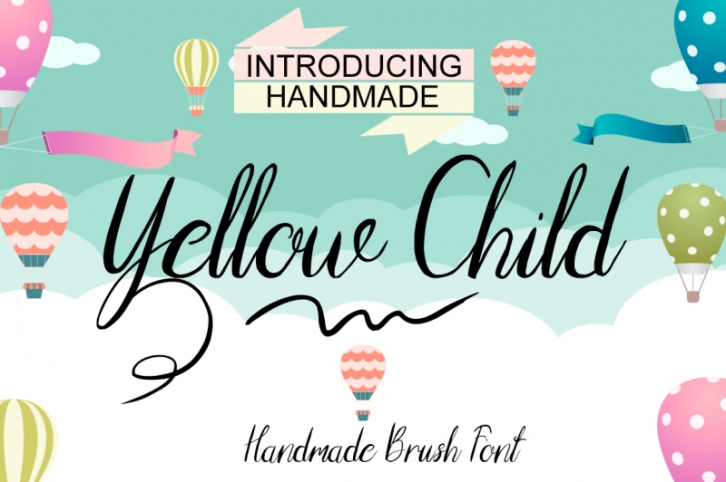
Yellow Child Script FONT Download
In addition, the construction of logo,
you can use any case you want to sign in and print.
Font typography in a consistent fashion.
You can create your logo, your own brand.
You want an invitation letter for special occasions can be seen perfectly.
As stated in the presentation of a beautiful cover of the book cover can be created.
When opening your new sign in a café,
a shop opening modification you want to make your beautiful handwriting appealing to
the eye lid on the product you want to promote.